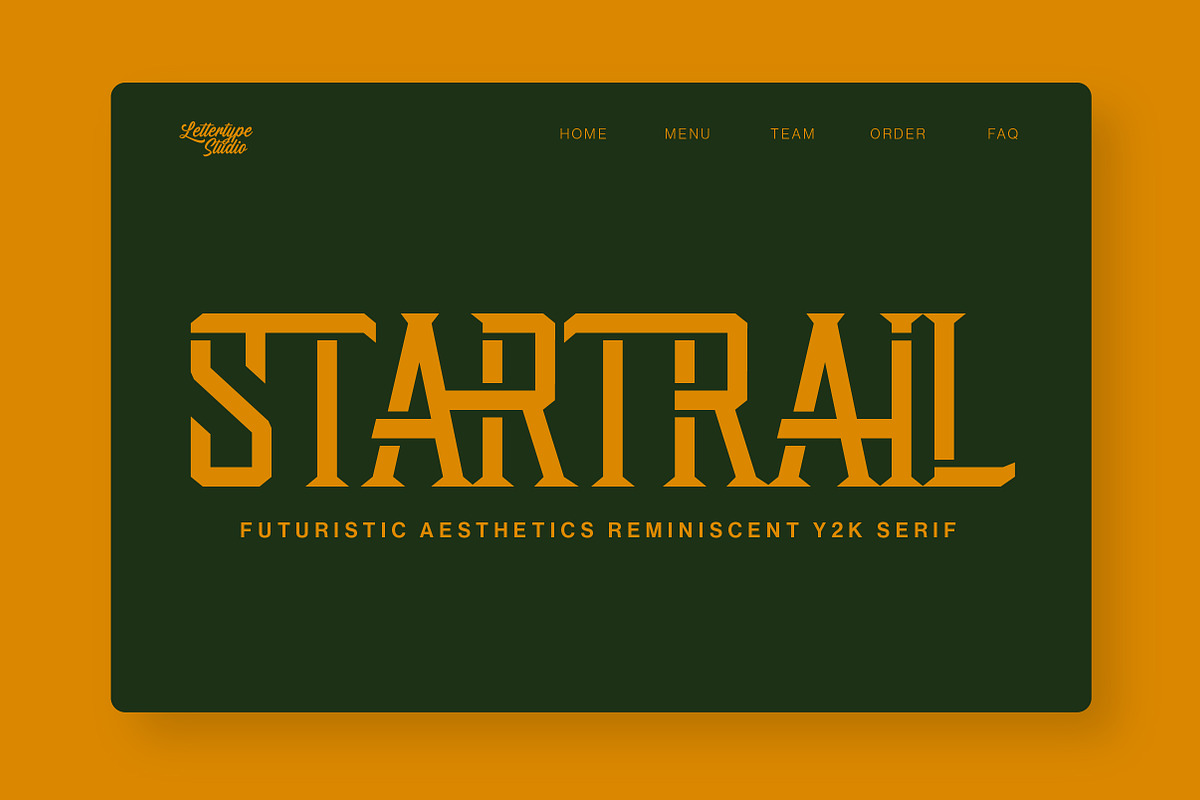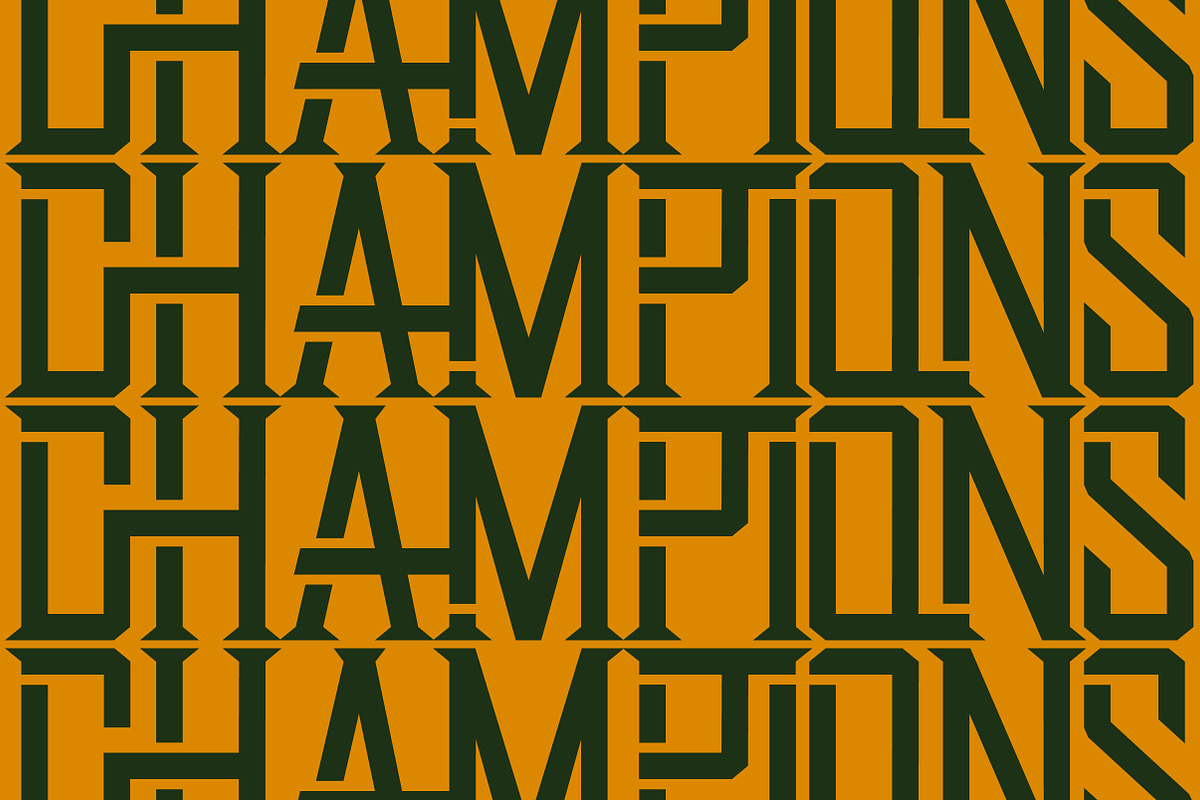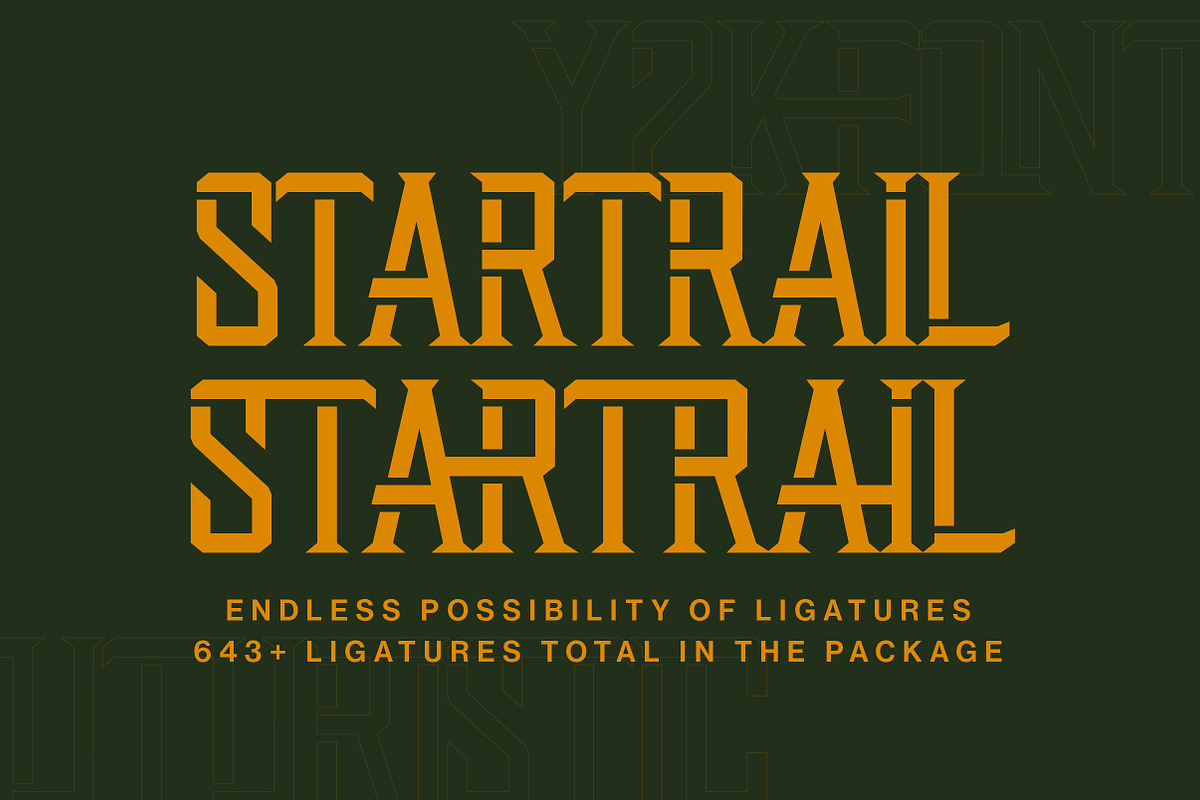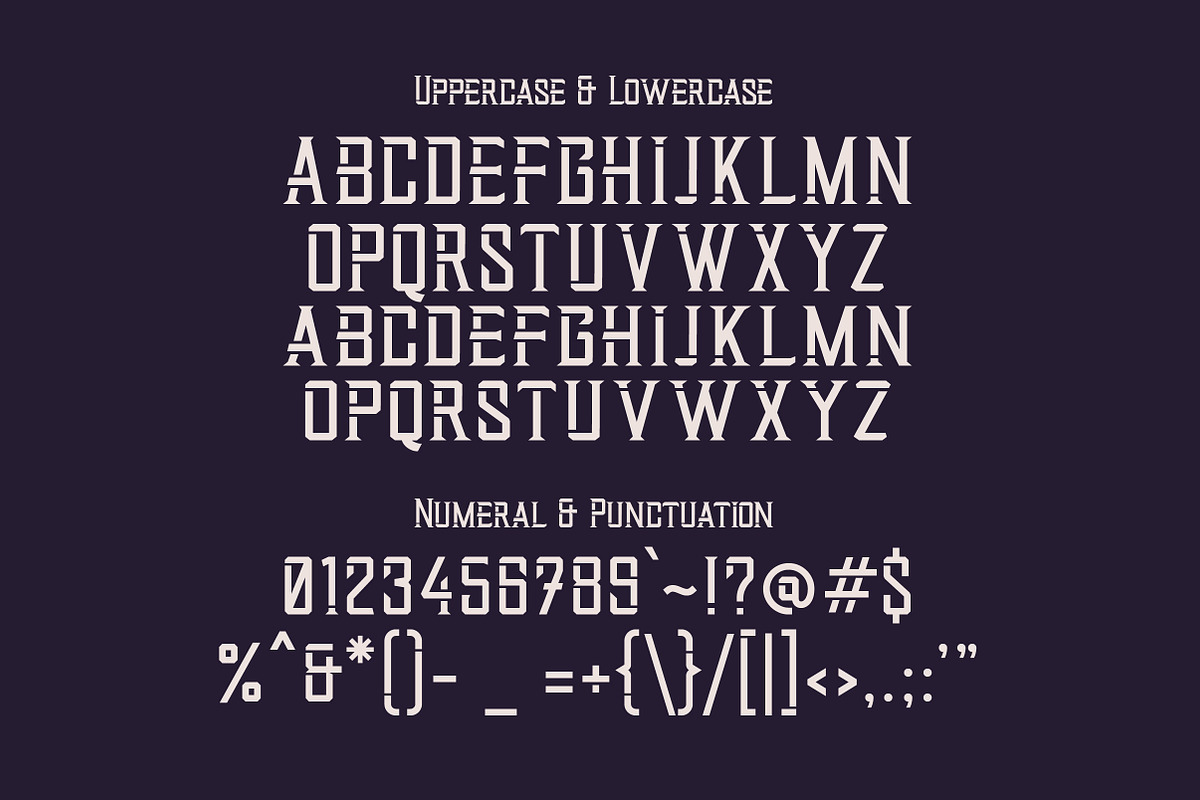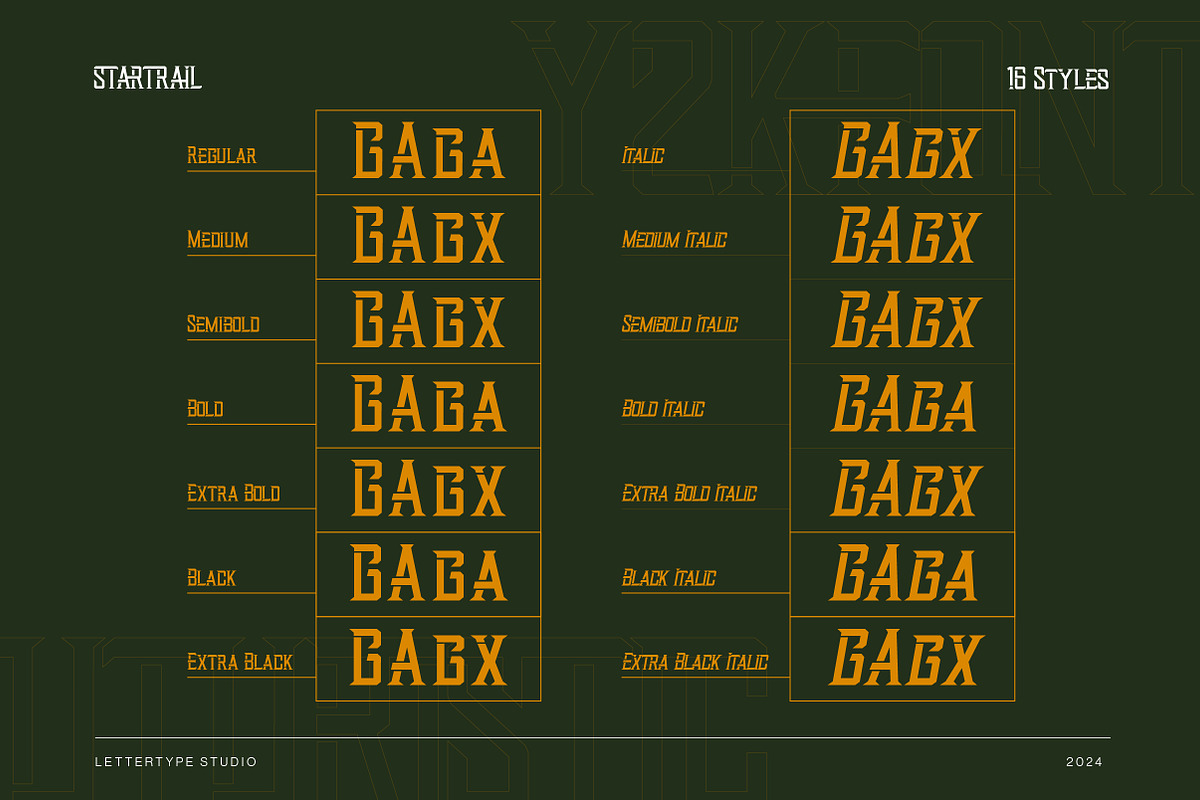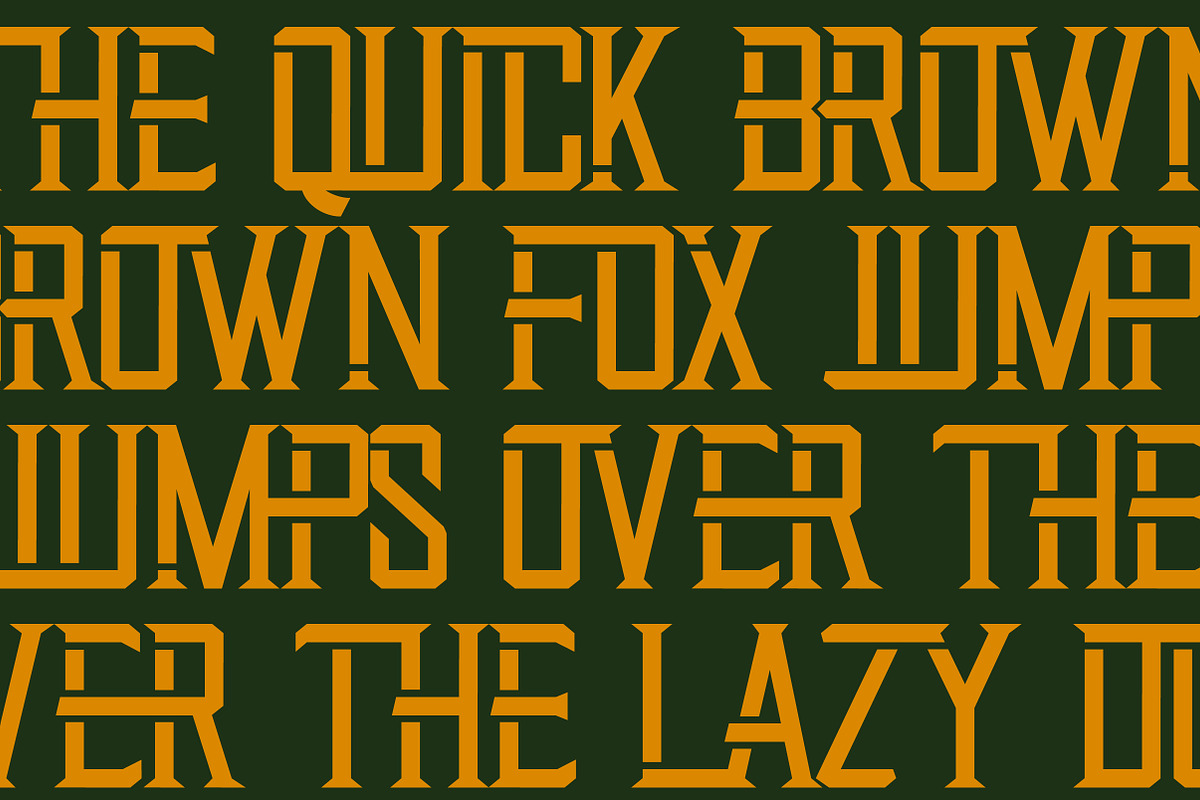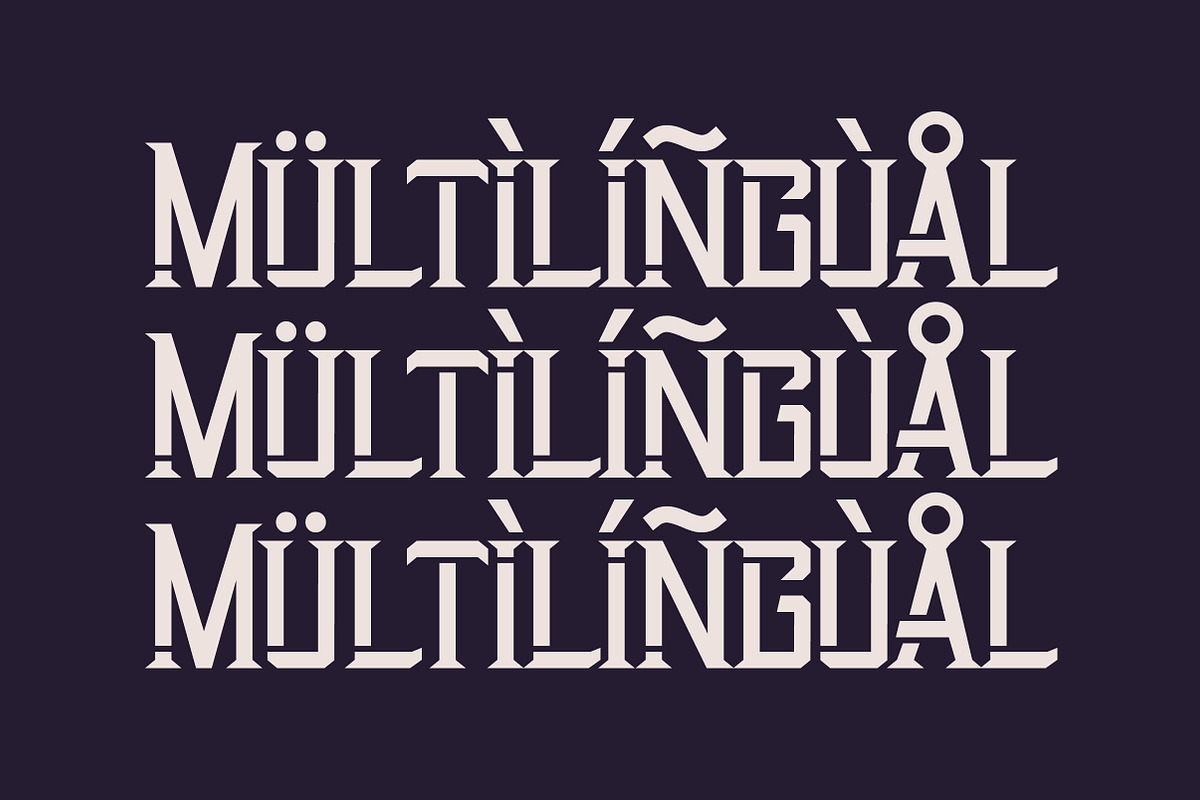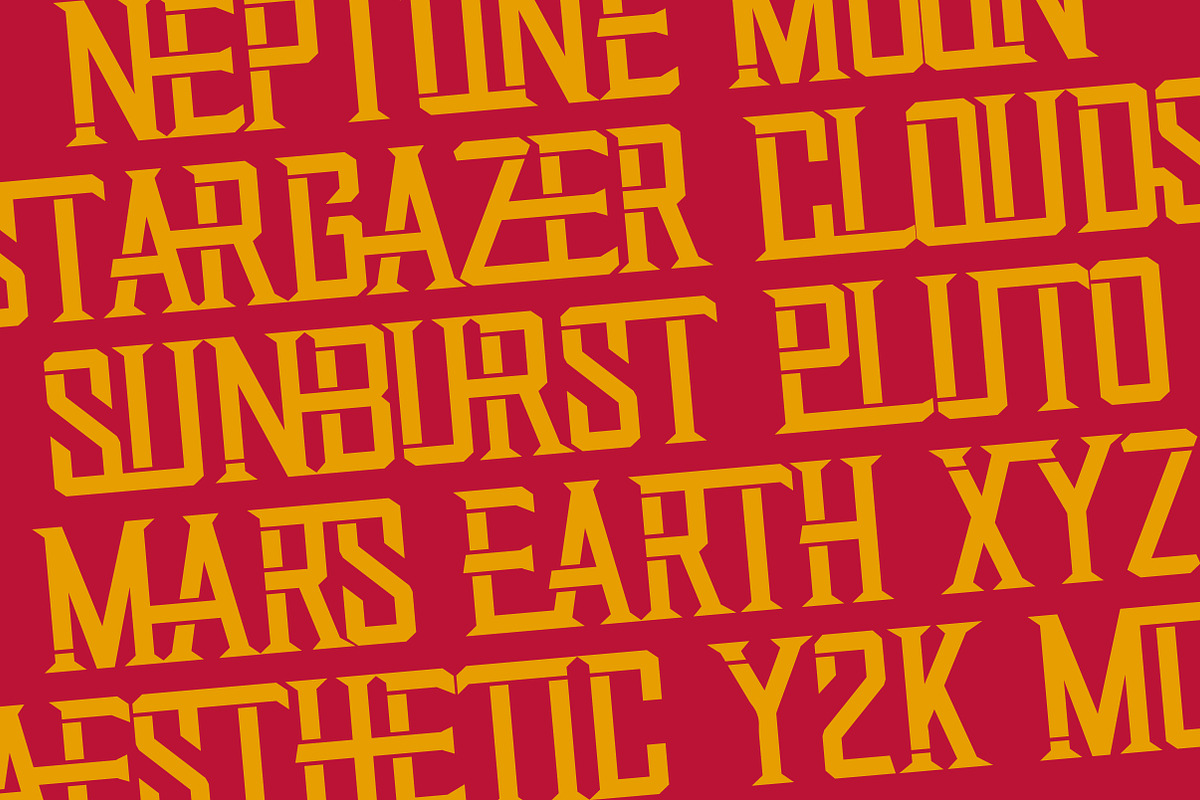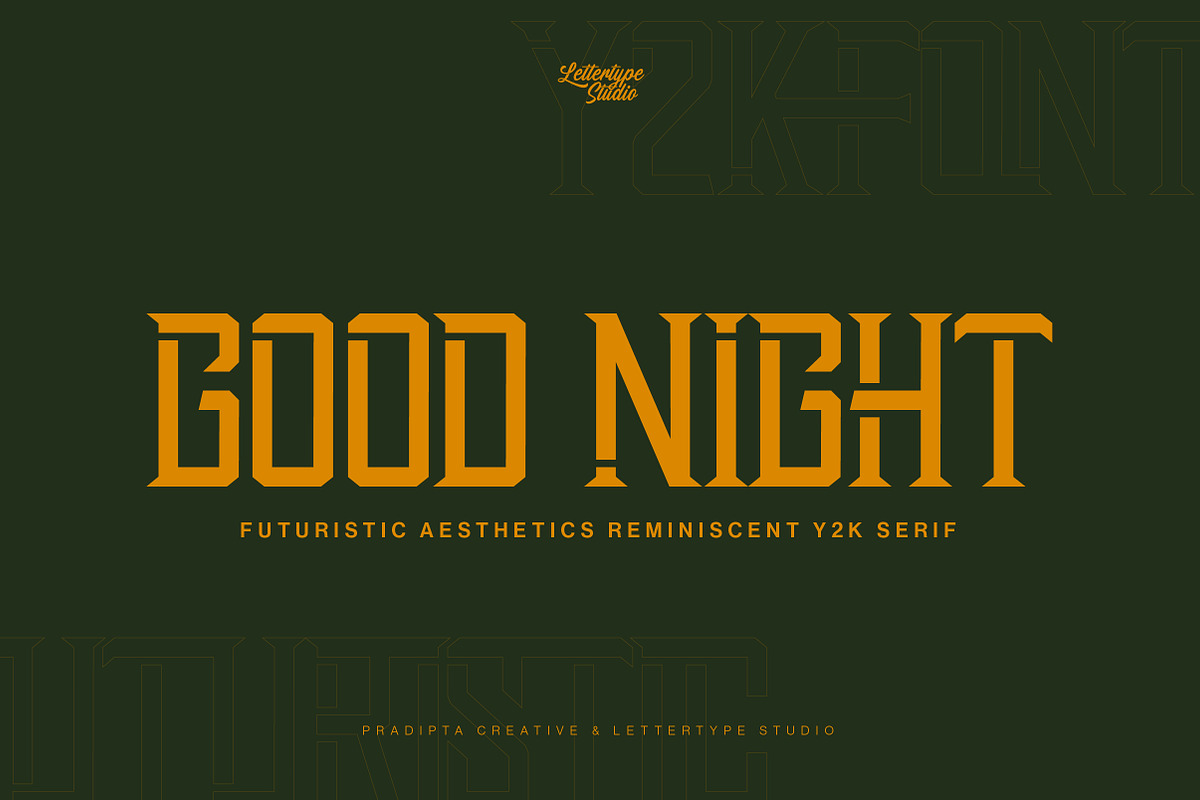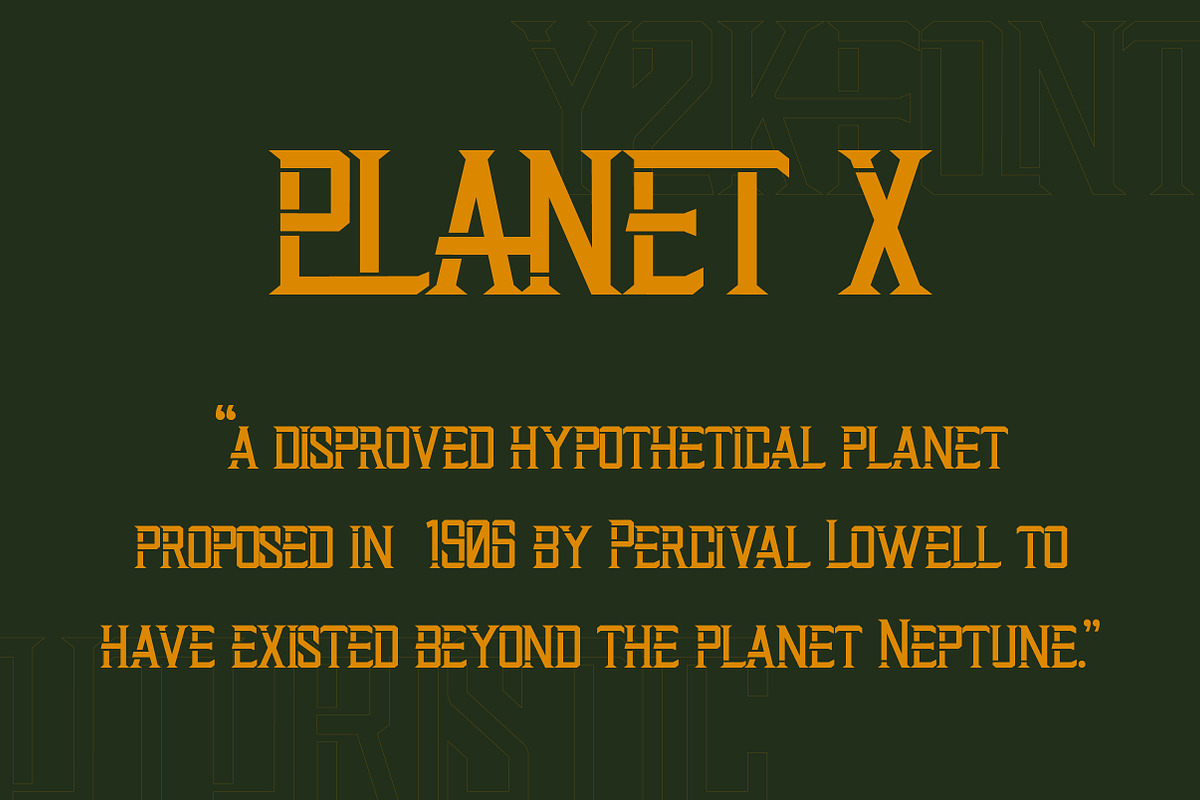
Startrail Futuristic Retro Family
Startrail is a serif fonts with a Y2K style combine the traditional elegance of serif typefaces with the bold, futuristic aesthetics reminiscent of the late 1990s and early 2000s. These fonts often feature distinct, exaggerated serifs, and incorporate elements from the Y2K era such as metallic textures, neon colors, and digital-inspired shapes. They are perfect for projects that aim to evoke a sense of nostalgia while maintaining a contemporary edge.
Startrail Comes With:
- Lowercase, Uppercase, and Ligatures
- Accented Characters
- Quarters Font Family (Regular, Italic, Bold, Bold Italic, ExtraBold, and ExtraBold Italic)
- Multiple Languages Supported